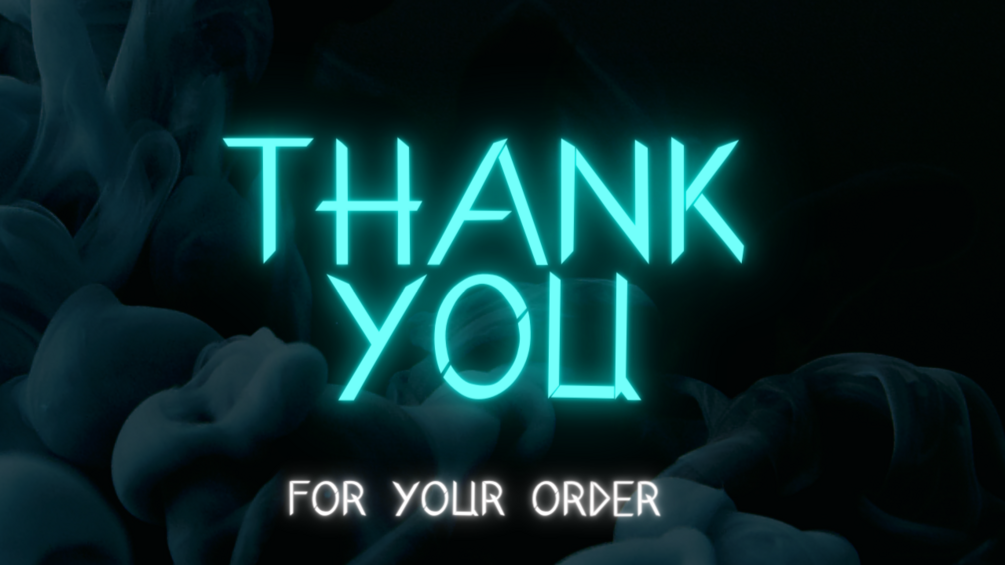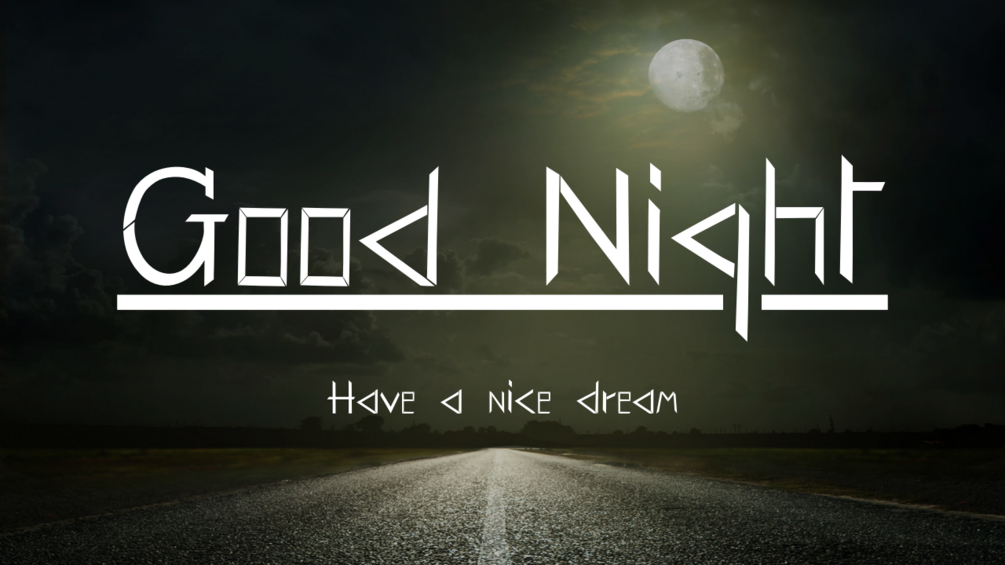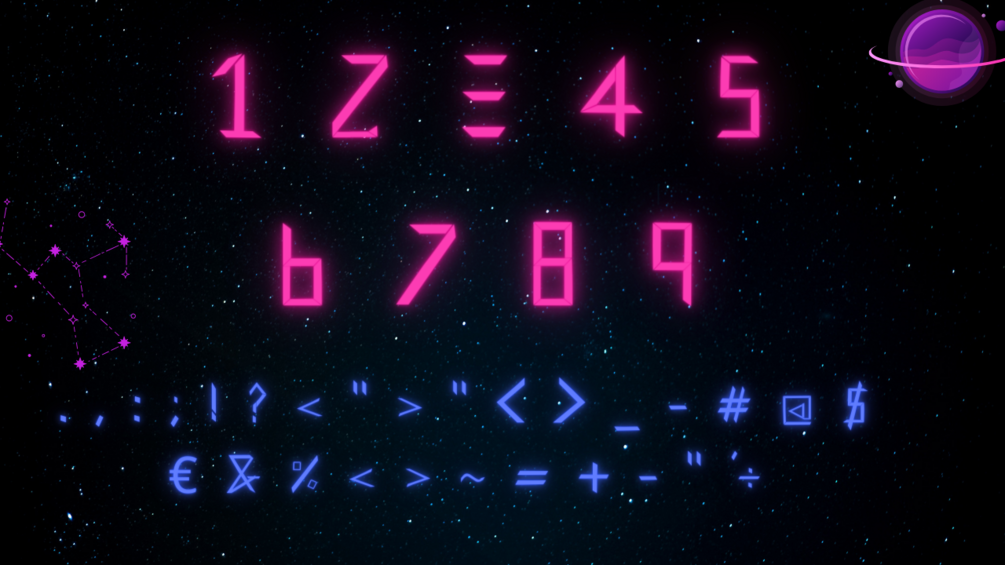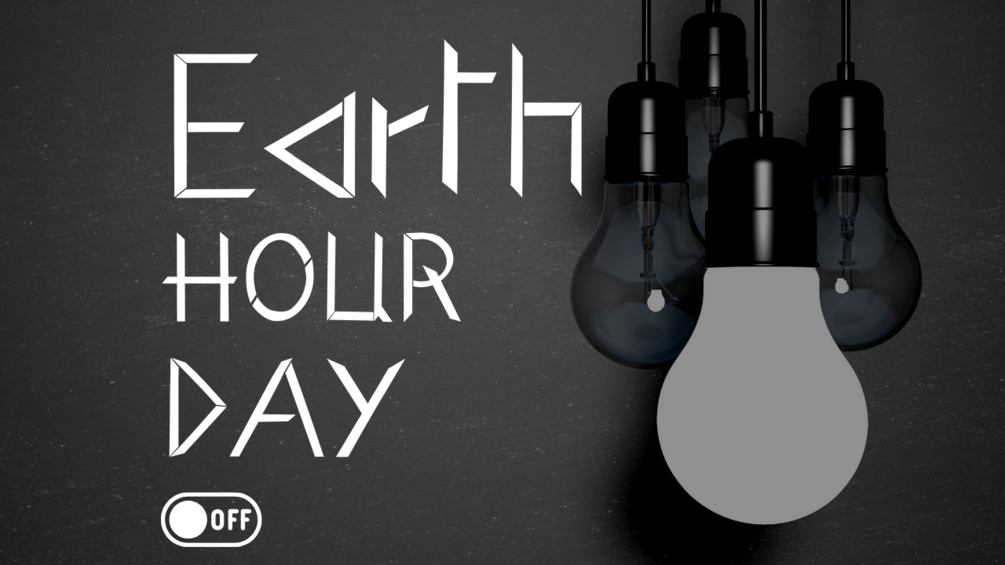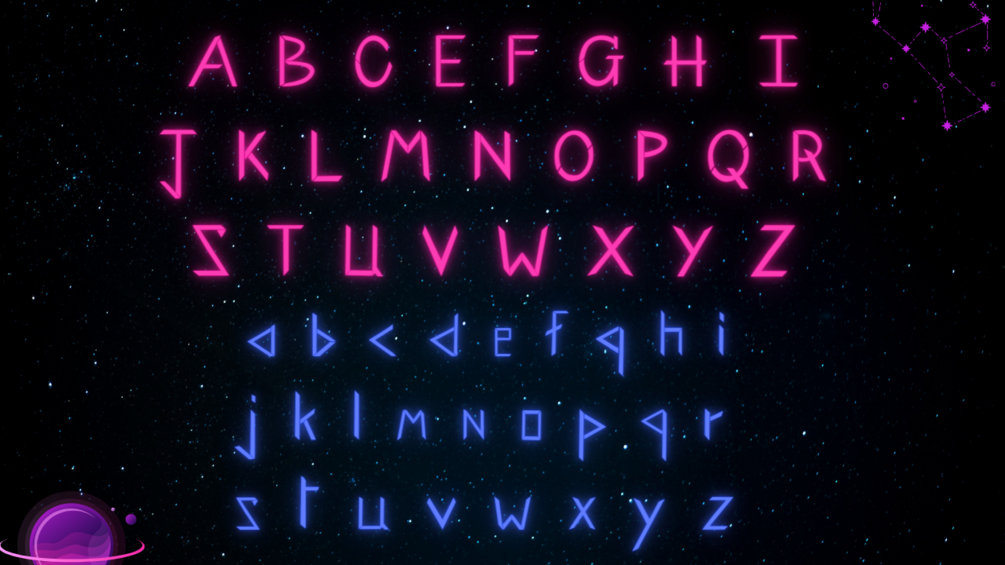
Luna handwritten font
luna is a simple, neat, and adaptable handwritten font. No matter the topic, this font will be an incredible asset to your fonts’ library, as it has the potential to elevate any creation,I hope the text work will make your work stand out and unique to your work.